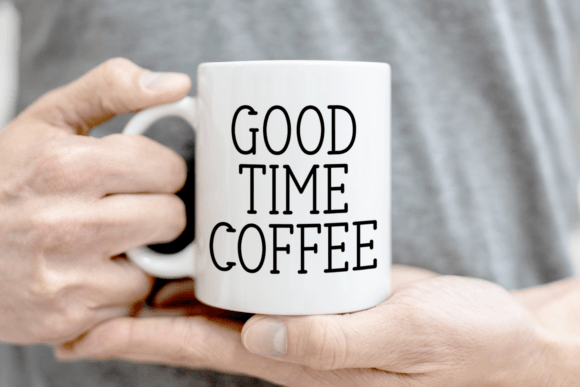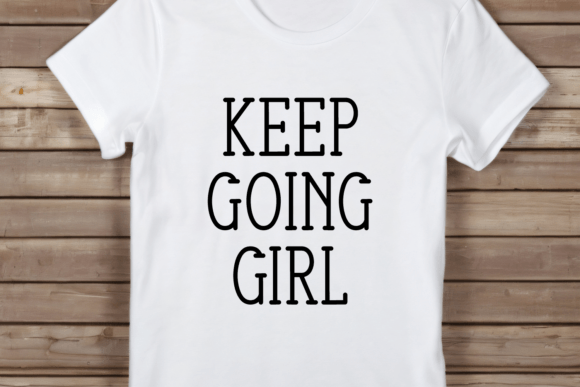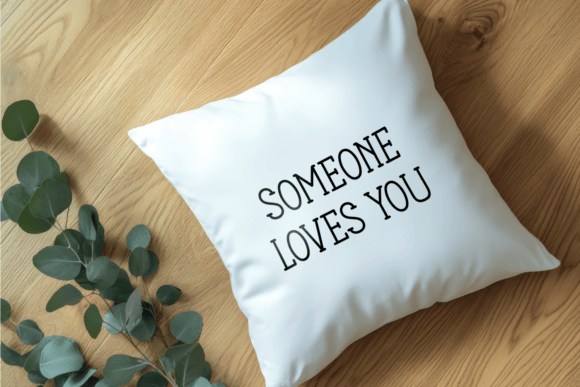
Discover the Secret to Unlocking Joy with Typography
Remember that moment when you stumbled upon the perfect font for your project? The one that instantly elevated your design from good to great? For many of us, that moment is a defining experience that sets our creative juices flowing. And for designers seeking to craft engaging, emotive content, finding the right font can be a game-changer.
Enter the Awake Happiness Font, a clean and cheerful serif font designed to spread joy and warmth through its simple, friendly letters. Its purpose is to bring a smile to your audience’s faces, making it perfect for titles, quotes, and playful designs. By incorporating the Awake Happiness Font into your projects, you can add a touch of classic style with a modern twist, making your designs stand out in a crowded market.
Key Features of Awake Happiness Font
- Unique Characteristics: The font features a unique blend of modern and traditional elements, with subtle rounded edges and a friendly, approachable feel.
Awake Happiness Font Review
As a designer, I was excited to try out the Awake Happiness Font, but my experience was mixed. Here’s what I thought:
- ✨ Friendly and approachable feel: The font has a warm and inviting tone that’s perfect for creating a welcoming atmosphere.
- ✨ Good legibility: The font is easy to read, even at smaller sizes, which is essential for body text and headings.
- ✨ Unique flair: The Awake Happiness Font has a distinctive style that sets it apart from more common fonts, making it a great choice for adding some personality to your designs.
- ⚠️ Limited font sizes: The font looks a bit cramped when used at larger sizes, which can make it difficult to read in certain contexts.
- ⚠️ Limited language support: The font doesn’t support as many languages as I’d like, which can be a problem for projects that require multilingual support.
The Awake Happiness Font is a solid choice for designers looking to add some personality to their projects. While it has its limitations, the font’s friendly feel and good legibility make it a great option for body text and headings. However, it may not be the best choice for larger font sizes or projects that require extensive language support.
For optimal results, use the Awake Happiness font in conjunction with a clean and minimal design aesthetic. Common use cases include:
– Headlines and titles
– Quotes and inspirational text
Alternatives to Awake Happiness Font
Great Vibes Font is a modern, elegant script font perfect for adding a touch of sophistication to your designs. It is ideal for use in logos, branding, and packaging design. This font is a great alternative to Awake Happiness Font as it has a similar feel but with a more refined and polished look.
Comparison: While Awake Happiness Font has a more playful and bubbly feel, Great Vibes Font is more subdued and elegant. Great Vibes Font is better suited for designs that require a more mature and sophisticated look.
Dancing Script Font is a lively and energetic script font that is perfect for adding a playful touch to your designs. It is ideal for use in social media graphics, advertisements, and event invitations. This font is a great alternative to Awake Happiness Font as it has a similar playful feel but with a more dynamic and energetic vibe.
Q: What is the recommended font size for optimal readability with the Awake Happiness Font?
The recommended font size for optimal readability with the Awake Happiness Font is between 12pt and 18pt, depending on the application and intended audience. However, feel free to experiment with different font sizes to find the best fit for your design.